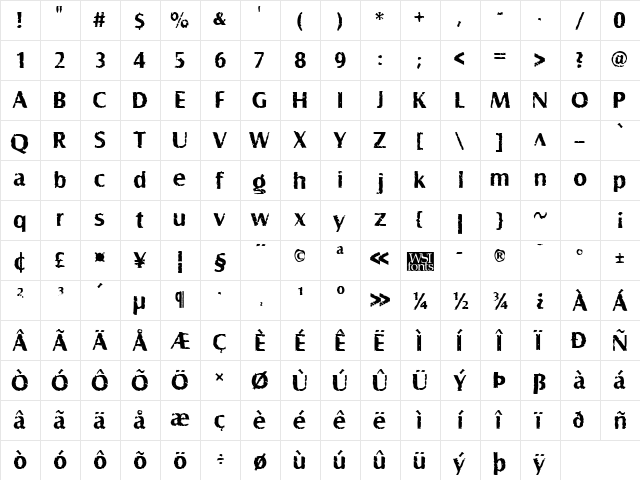
Grelbb Regular
Design Context for Grelbb Typeface
Grelbb offers clean, dependable letterforms without strong stylistic allegiance, making it a practical choice for designers who need flexibility.